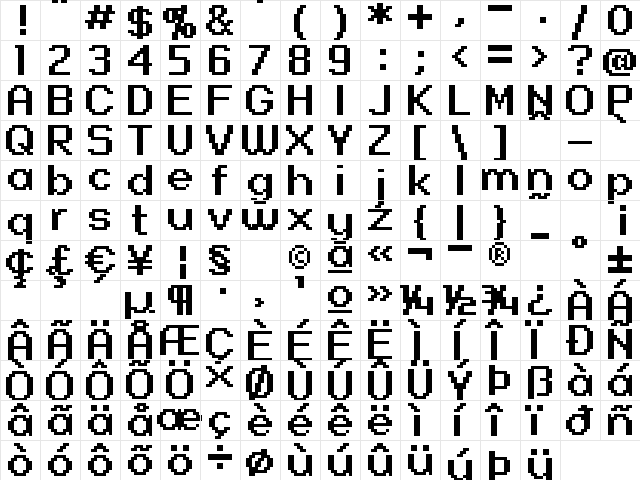
schoenecker 10_66 Regular
| Foundry | Adobe Systems Incorporated |
| Designer | Craig Kroeger |
Design Context for schoenecker 10_66 Typeface
schoenecker 10_66 takes a measured approach to typography — its balanced proportions and neutral character make it a reliable workhorse for both digital and print work.